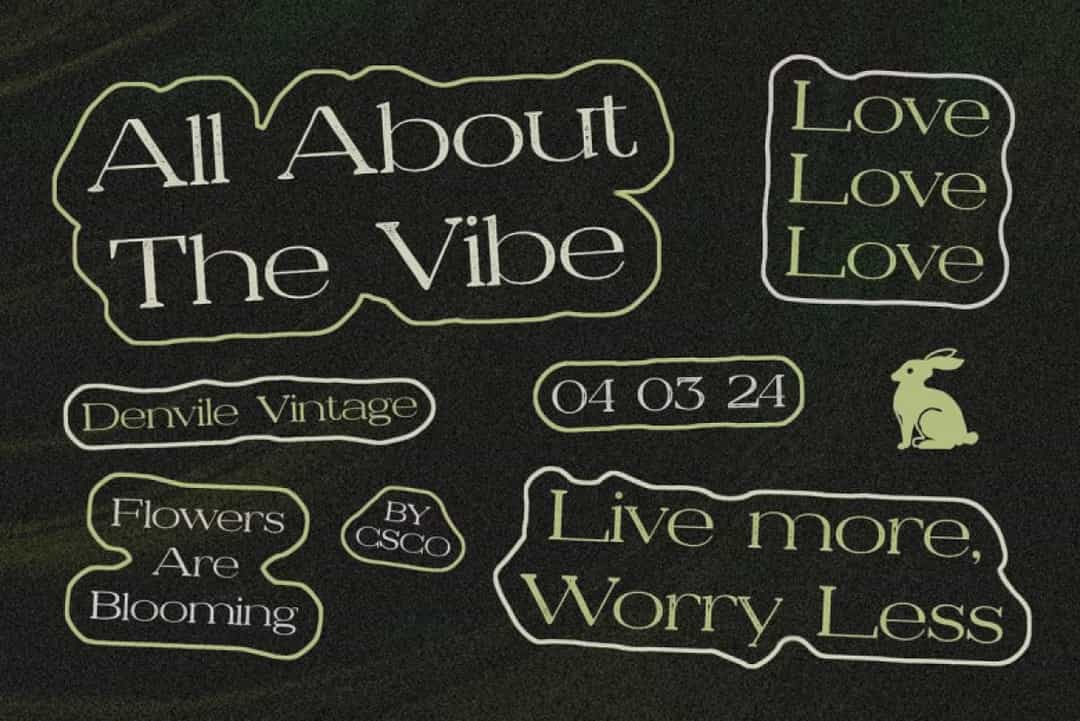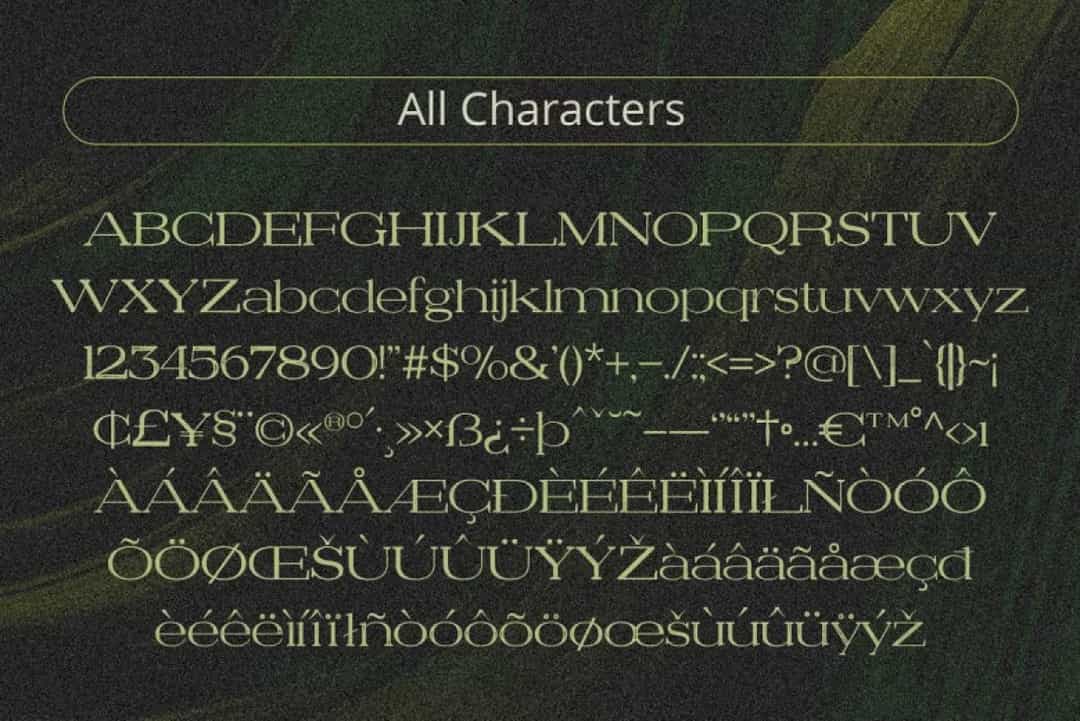
Denvile Vintage offers an eye-catching moderate contrast serif style, offering elegant yet easy reading. The well-defined serifs add an air of sophistication that suits every character perfectly. This font exudes an aged and rustic charm reminiscent of vintage typography, conveying an atmosphere of authenticity and history with every letter.